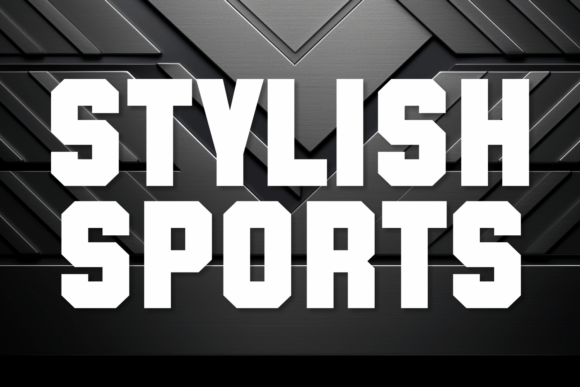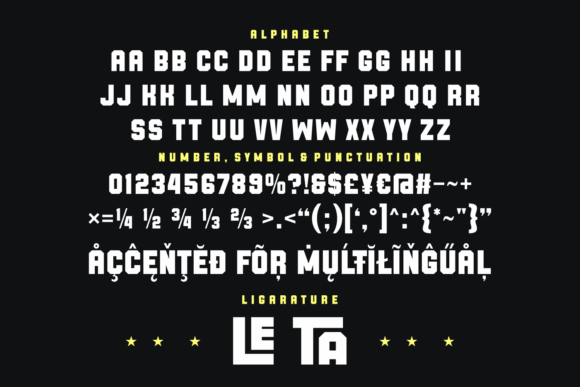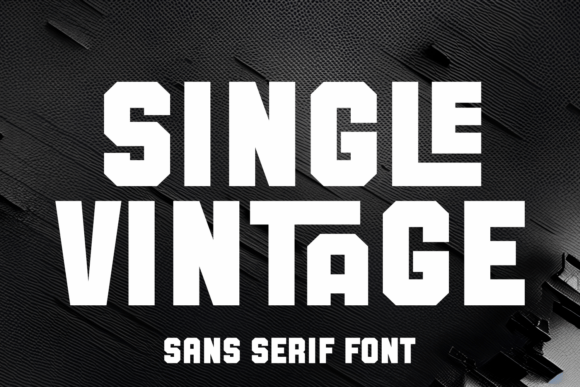
Single Vintage Font: Free Download Now
Introduction to Single Vintage Font
🏙️ Single Vintage: Assertive Modern Font Unveiling an artistic masterpiece, the Single Vintage Modern Sans Font is a sleek Sans-Serif typeface infused with a unique blend of a distinct contemporary style and a hint of vintage charm .
👤 Author Ade (7NTypes)
This font showcases clean, geometric nuances , making it an essential choice for professionals Featuring a condensed, bold look , this display font exudes a minimal yet strong impact , making it ideal for headlines and editorial work .